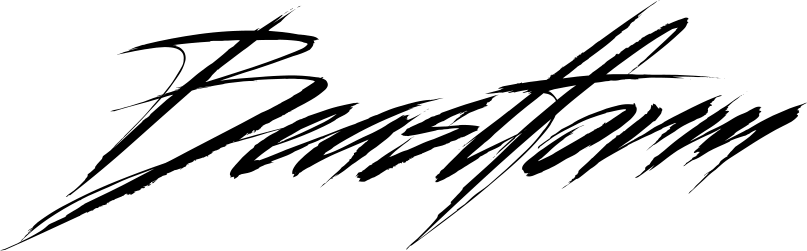
Beastform Font
Beastform is thin, sharp, and pretty informal. It is a brush font that looks like actually handwritten notes. It makes an excellent choice if you want to add a personal touch to your brand and sound close and informal to…
Beastform is thin, sharp, and pretty informal. It is a brush font that looks like actually handwritten notes. It makes an excellent choice if you want to add a personal touch to your brand and sound close and informal to your target audience. You can use Beastform on your writing in branding, logotypes, hand-lettering, apps, and so forth!